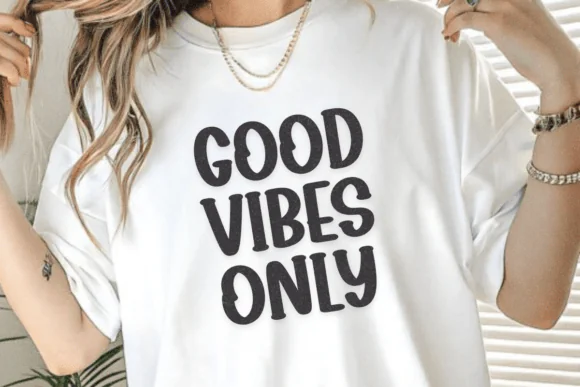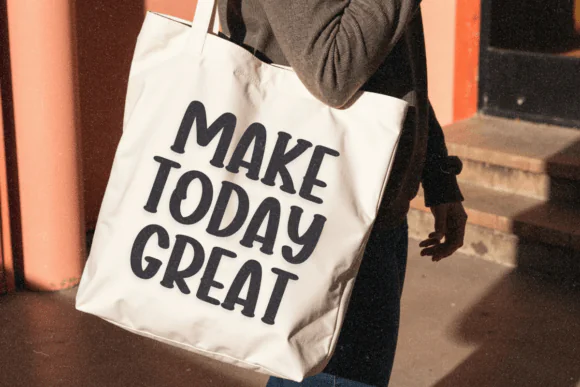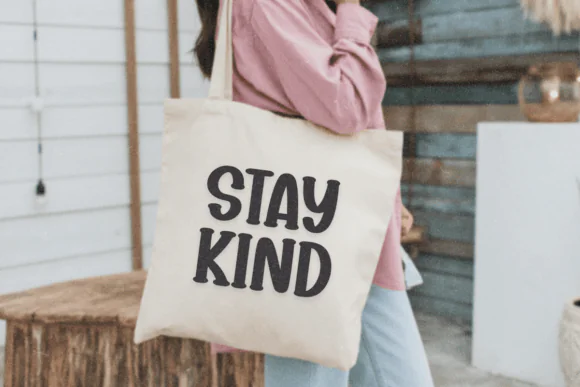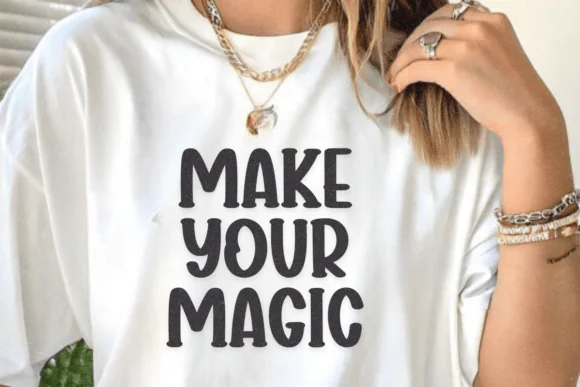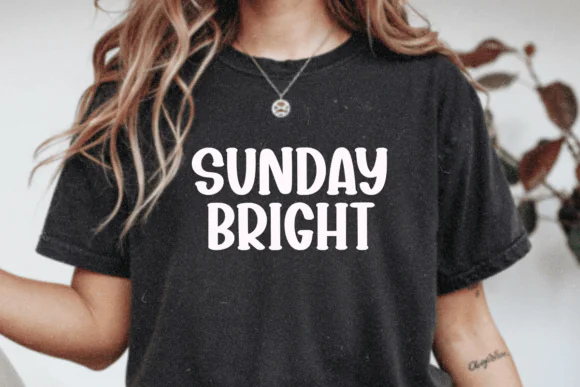
Bubble Candy Font | Modern Bold Minimal Display Typeface for T-Shirts, Logos, Quotes, Branding, Headlines, Valentine Designs & Creative Projects
Create bold, stylish, and visually memorable designs with Bubble Candy Font, a modern display typeface that blends playful bubble-inspired charm with clean minimal elegance. With its smooth contours, strong visual presence, and creative personality, this font is perfect for projects that need a fresh, artistic, and eye-catching look.
Bubble Candy Font is a versatile choice for designers, crafters, brand owners, content creators, and print-on-demand sellers. It works beautifully for t-shirt designs, inspirational quotes, print layouts, logos, branding identity, headlines, posters, photography accents, social media graphics, stickers, labels, product packaging, Valentine designs, and decorative artwork.
Its bold yet refined style makes it suitable for both fun and polished creative projects. Whether you are designing a modern logo, a stylish quote poster, a romantic Valentine graphic, a clean headline, or a standout apparel design, Bubble Candy adds a unique artistic twist that helps transform simple text into something attractive and memorable.